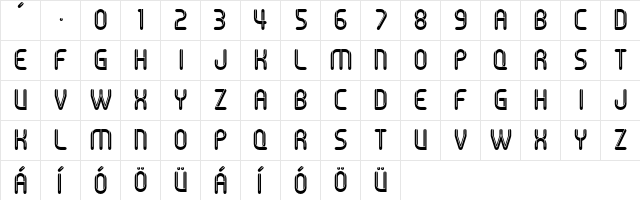
RealMadrid2011 Regular
Design Context for RealMadrid2011 Typeface
RealMadrid2011 offers clean, dependable letterforms without strong stylistic allegiance, making it a practical choice for designers who need flexibility.
Pro Tip: Use RealMadrid2011 in both headline and body roles to test its range before committing to a single application.